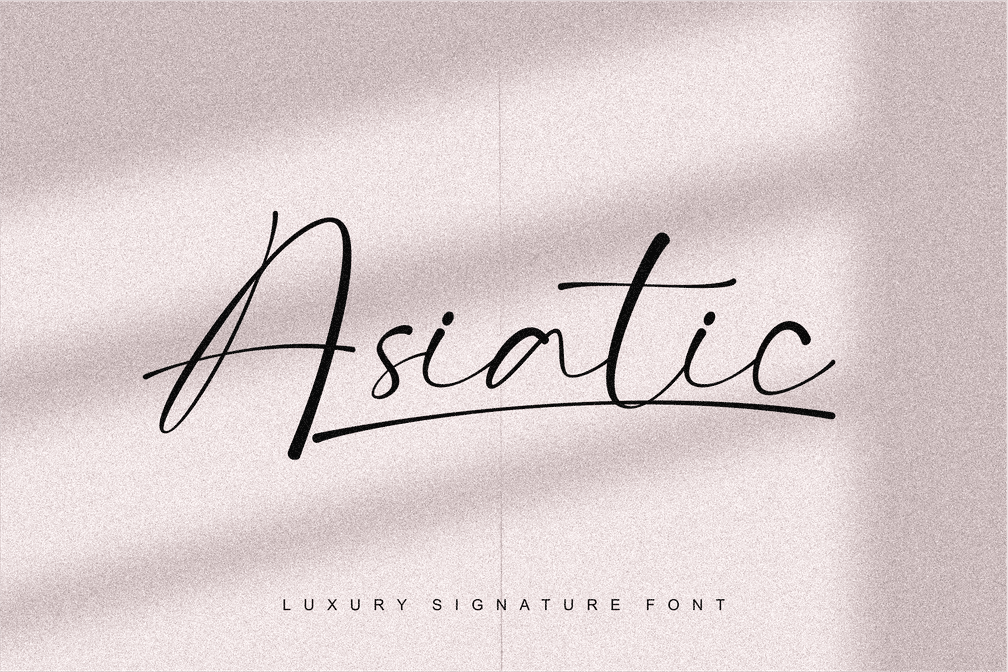
Asiatic Signature Script
Asiatic inspired by a beautiful signature style with a thin character but gives a beautiful impression when applied to designs with feminine nuances such as logos, headlines, magazines and others.